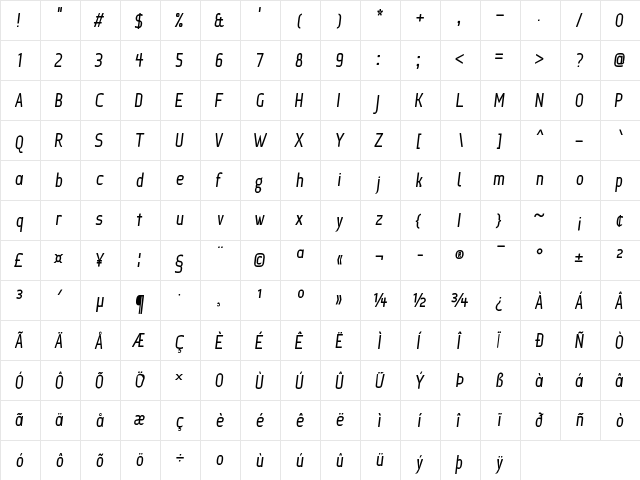
Ice Sans Compressed Italic
| Designer | Wolf Lambert |
Design Context for Ice Sans Compressed Typeface
Ice Sans Compressed is a composed and adaptable typeface that performs quietly and consistently across a wide range of design contexts. The slanted form adds forward momentum and visual energy.
Pro Tip: Use Ice Sans Compressed for emphasis, pull quotes, and subheadings where its slanted energy can add rhythm to the layout.